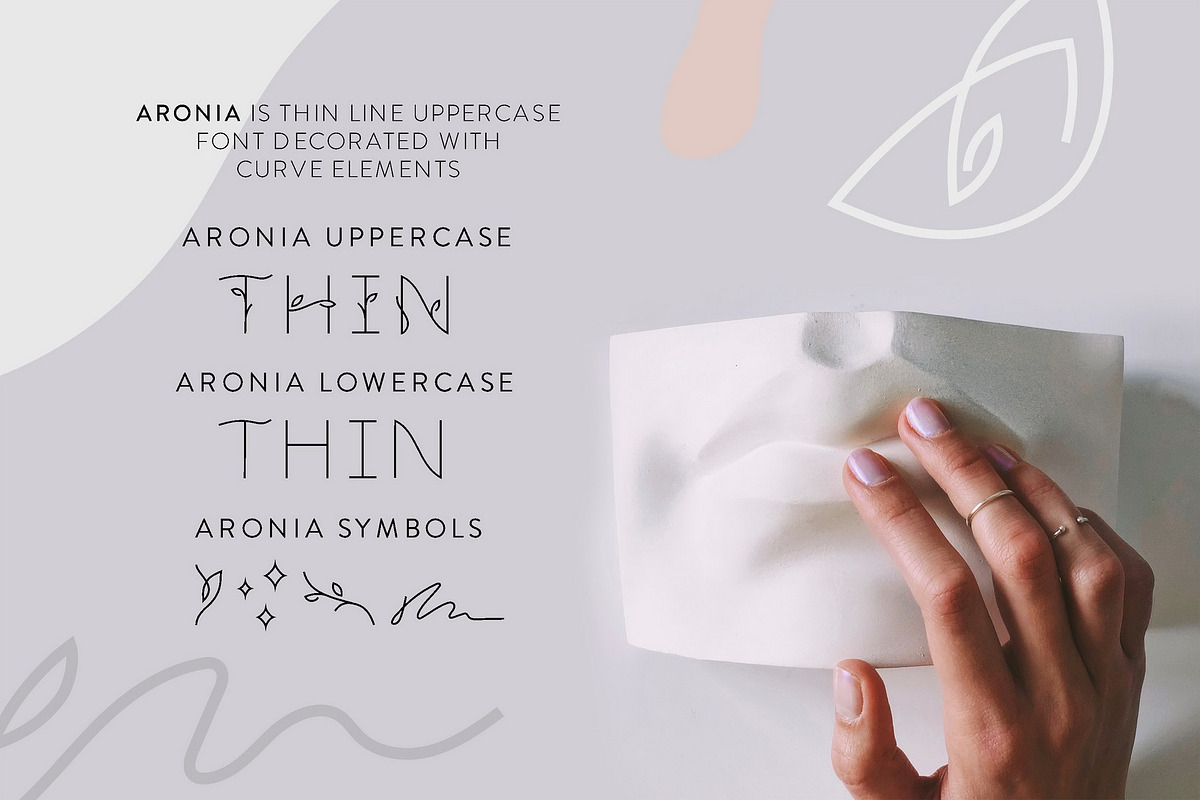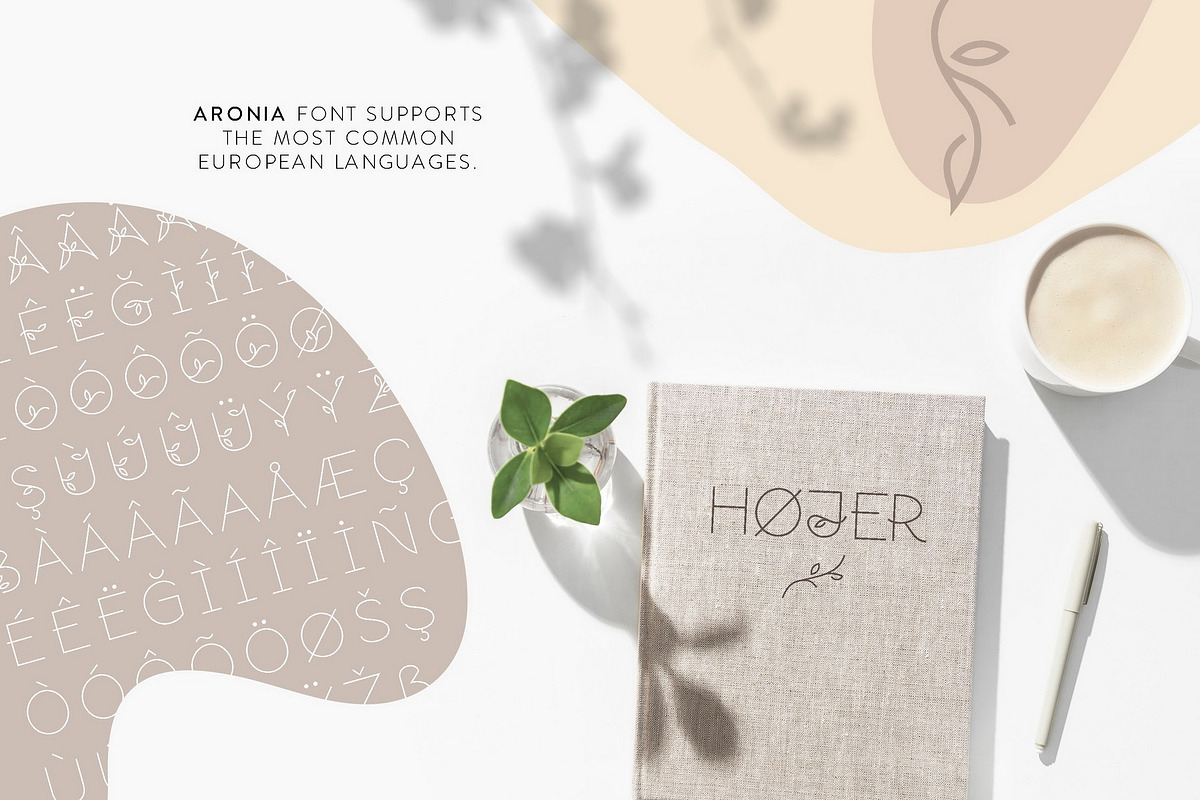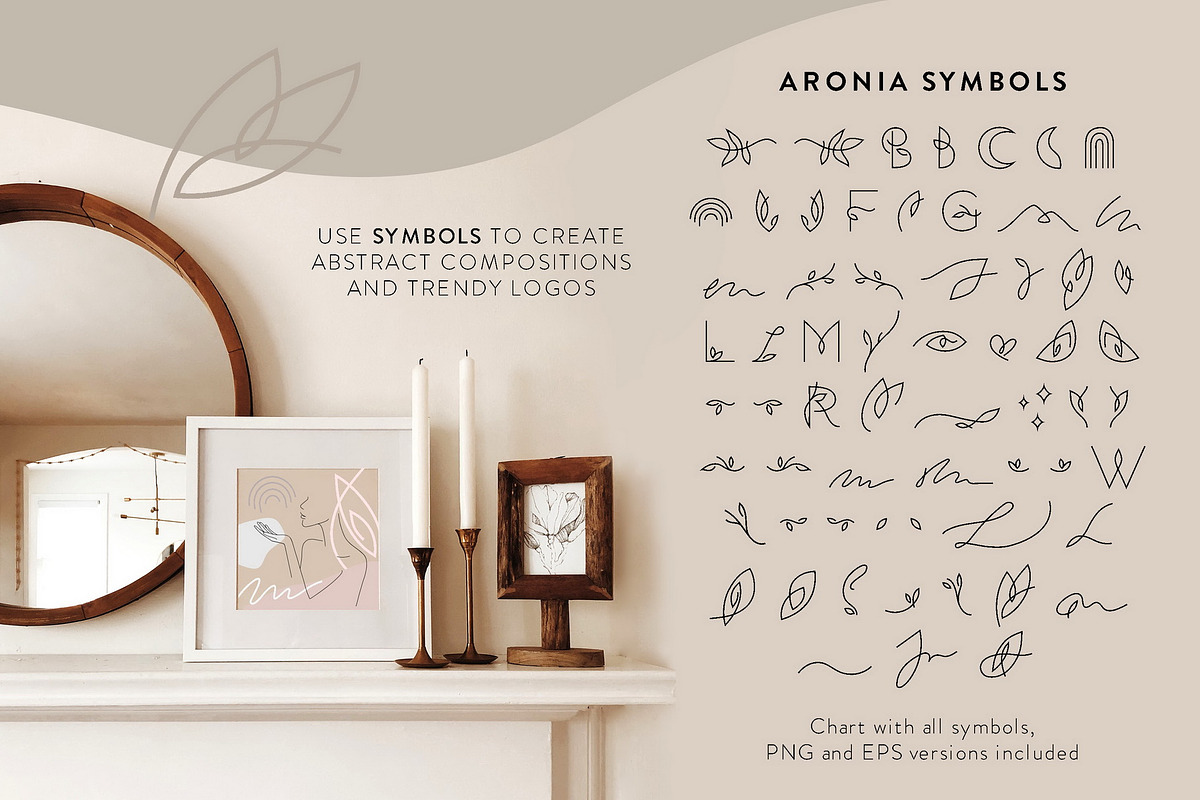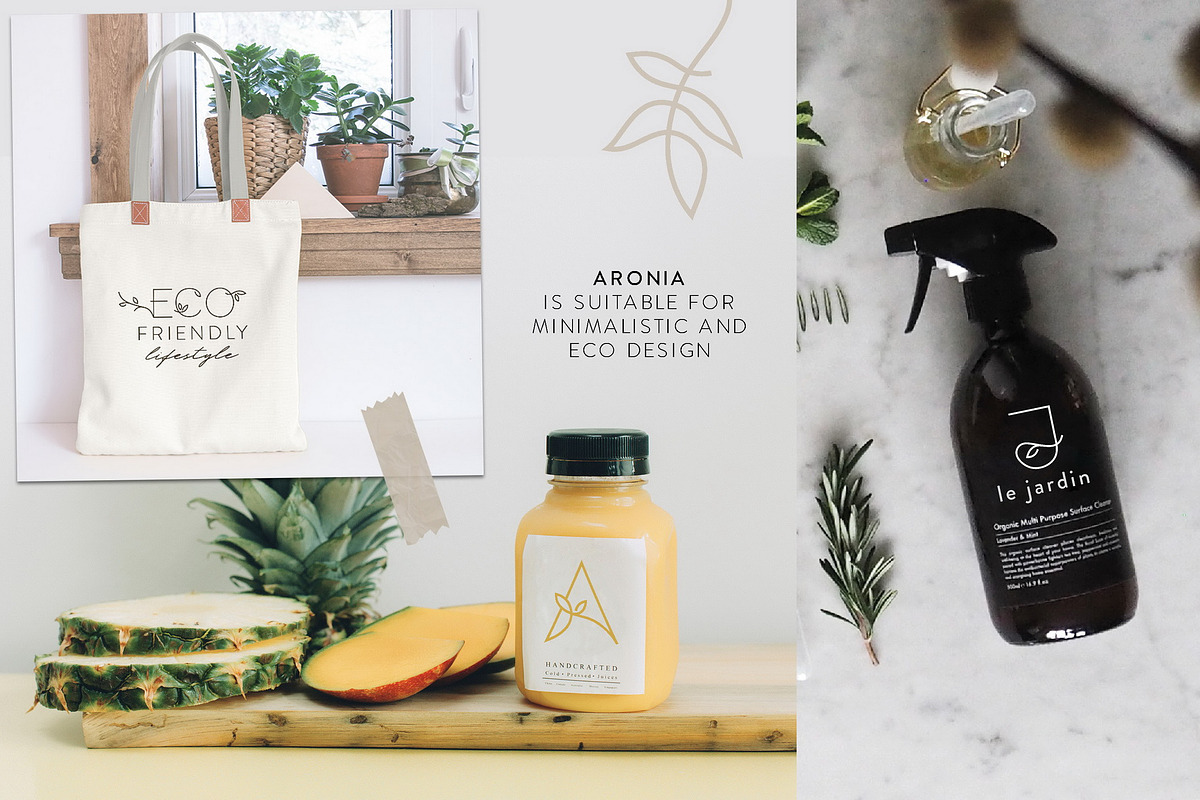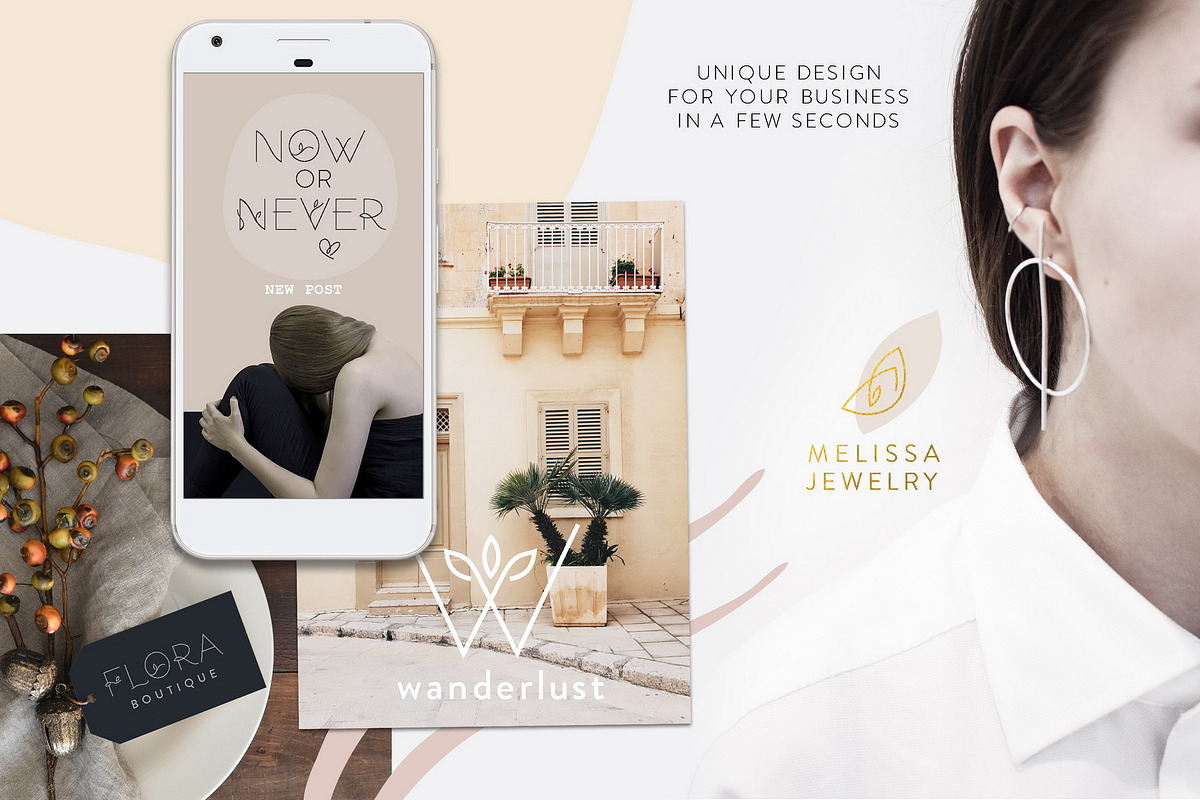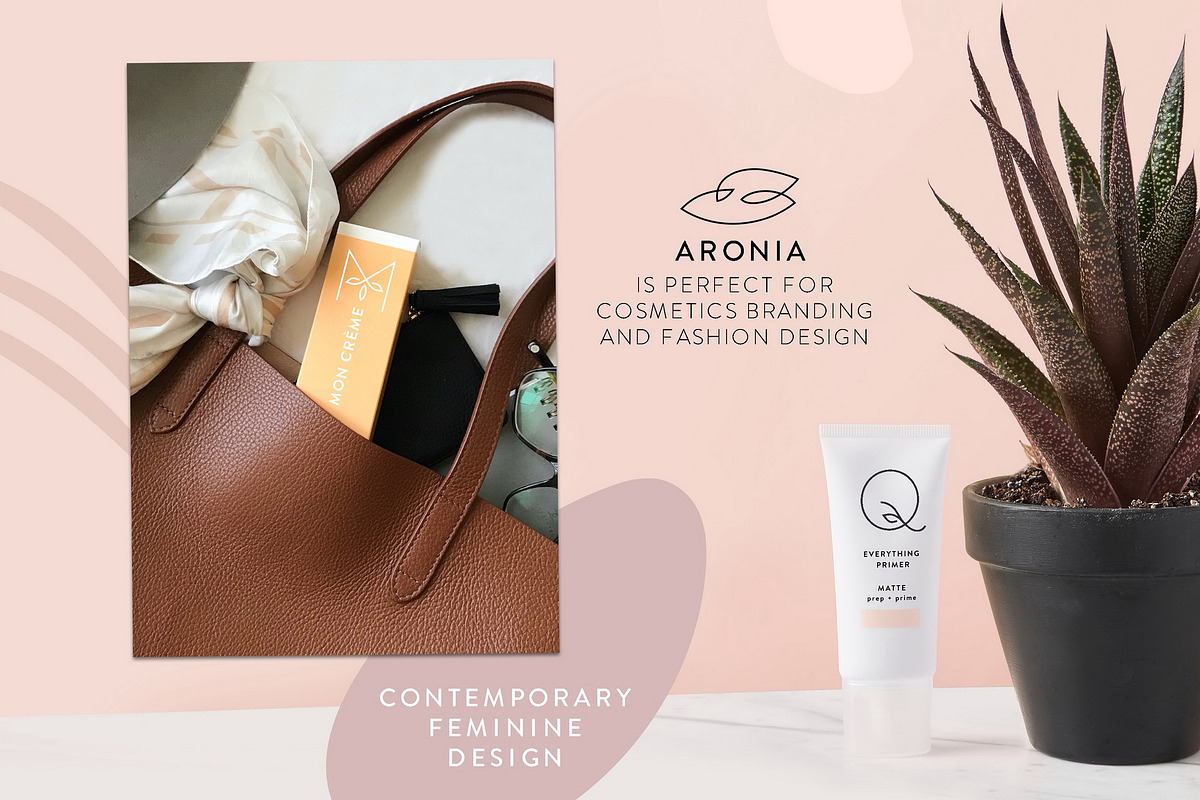
Aronia - Thin Line Logo Font
Aronia is thin line uppercase font with floral motives. The typeface includes Regular and Symbol versions. To get an elegant and unique design, combine letters with elements. The font is easy to use in various design programs or without any program.
Aronia is suitable for feminine business branding, eco-friendly and minimalistic art, social media design. The font works great for craft products branding and packaging (organic cosmetics and food, jewelry, handmade soap ect.) Also use individual letters and symbols to create logos and monograms. Aronia combines well with modern graphics: abstract shapes and line art.
The font has extensive language support, it includes English, French, German, Italian, Spanish, Portuguese, Danish, Norwegian, Swedish, Finnish, Estonian, Turkish. Need to know if your language is supported? Type any words in the text box below and see if all characters you need are there.